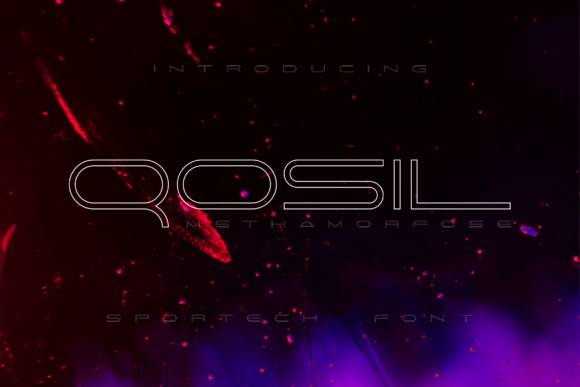
Qosil Methamorfose is a cutting-edge display font that exudes a sense of modernity and innovation. Its sleek and futuristic design is perfect for branding, technology-related projects, and any design that requires a touch of futuristic aesthetics. The font’s geometric shapes and minimalist style make it a standout choice for designers looking to create a bold and captivating visual identity.